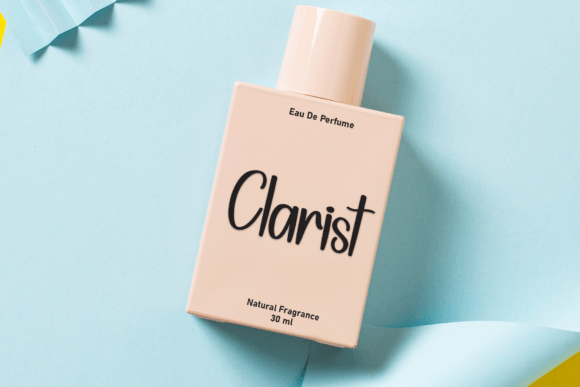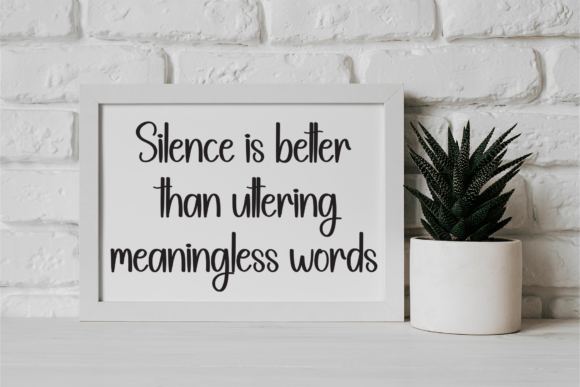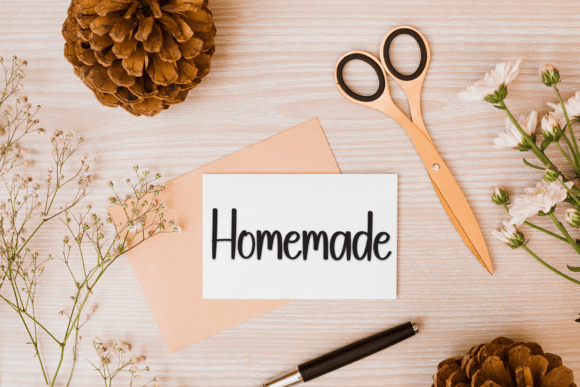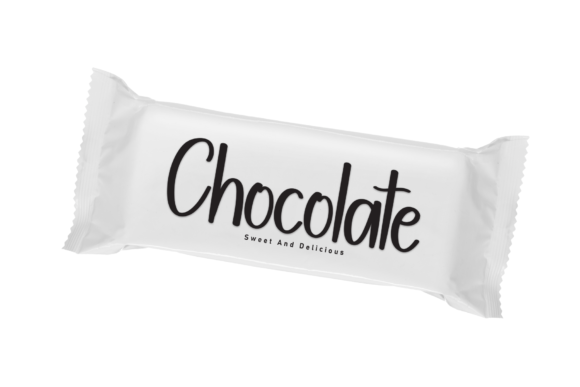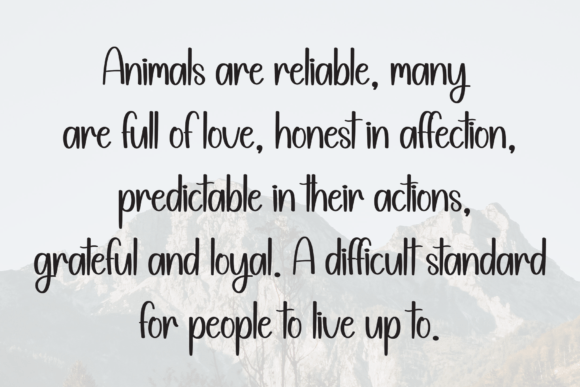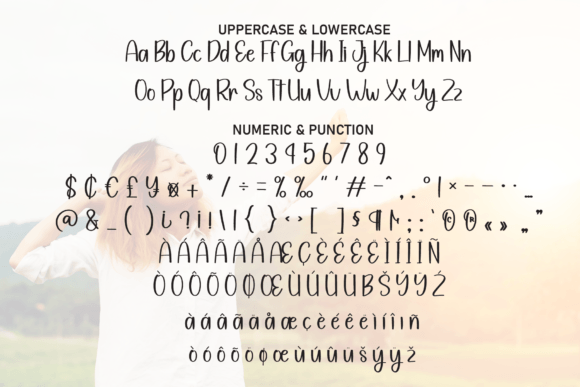
Introducing Happy Sunshine Font: Elevate Your Designs with Elegance and Class
Are you on the hunt for a font that exudes elegance, sophistication, and a touch of modern flair? Look no further than Happy Sunshine Font, a trendy handwritten font that is sure to take your design projects to the next level. Inspired by timeless classic calligraphy, Happy Sunshine Font brings a contemporary atmosphere and impeccable form to the table, making it the perfect addition to any designer’s toolkit.
The Inspiration Behind Happy Sunshine Font
Happy Sunshine Font draws its inspiration from the world of classic calligraphy, where the art of beautiful handwriting has been perfected over centuries. The font’s creator aimed to capture the essence of this timeless art form and infuse it with a modern twist, resulting in a font that is both elegant and fresh. The outcome is a font that boasts a unique character, perfect for designers who want to add a touch of sophistication to their work.
Key Features of Happy Sunshine Font
So, what makes Happy Sunshine Font stand out from the crowd? Here are some of its key features:
- Trendy and Handwritten: Happy Sunshine Font is a handwritten font with a trendy vibe, making it perfect for designers who want to add a personal touch to their work.
- Contemporary Atmosphere: The font’s modern design ensures that it stays relevant and fresh, even in today’s fast-paced design world.
- Impeccable Form: Happy Sunshine Font boasts impeccable form, with carefully crafted lettering that exudes elegance and sophistication.
- Elegance and Class: The font’s classic inspiration and modern twist combine to create a font that adds elegance and class to any design project.
Happy Sunshine Font is a versatile font that is perfect for a wide range of design projects, including:
- Branding and Logo Design: The font’s elegant and modern design makes it perfect for creating stunning brand identities and logos.
- Stationery and Invitations: Add a touch of sophistication to your stationery and invitations with Happy Sunshine Font.
- Packaging and Product Design: The font’s trendy vibe and impeccable form make it perfect for packaging and product design projects.
- Digital Design: Happy Sunshine Font is also perfect for digital design projects, including social media graphics, website headers, and more.
Why Choose Happy Sunshine Font?
With so many fonts available, why choose Happy Sunshine Font? Here are just a few reasons:
- Unique Character: Happy Sunshine Font boasts a unique character that sets it apart from other fonts.
- Elegant and Modern: The font’s elegant and modern design ensures that it stays relevant and fresh.
- Versatile: Happy Sunshine Font is perfect for a wide range of design projects, from branding and logo design to stationery and digital design.
In conclusion, Happy Sunshine Font is a trendy handwritten font that is sure to elevate your design projects with its elegance, sophistication, and modern flair. Inspired by timeless classic calligraphy, this font brings a contemporary atmosphere and impeccable form to the table, making it perfect for designers and crafters who want to add a touch of class to their work. With its unique character, versatility, and ease of use, Happy Sunshine Font is a must-have font for any designer looking to take their work to the next level.